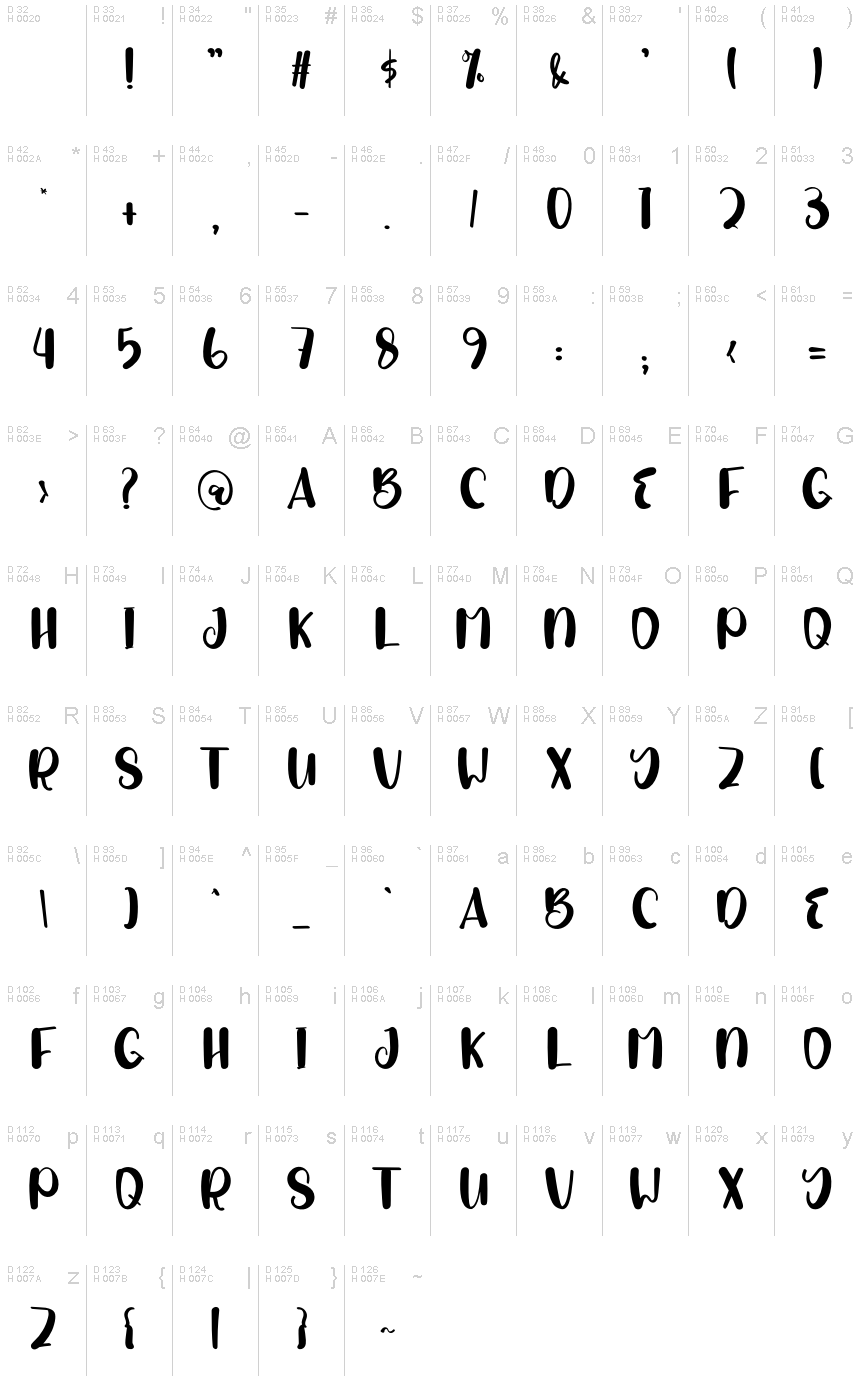
Stay Casual
Stay Casual is a bold, handwritten font crafted by PiPi Creative. This expressive typeface exudes a casual, carefree charm, with its organic, free-flowing strokes and playful aesthetic. The font's distinctive character lends an authentic, hand-lettered feel to any design, evoking a sense of warmth and approachability.
The versatility of Stay Casual makes it a compelling choice for a wide range of design applications, from branding and logos to editorial layouts and social media content. Its bold, eye-catching presence can elevate headlines, subheadings, and typographic accents, while its informal nature lends itself well to creative projects, promotional materials, and personal communications.